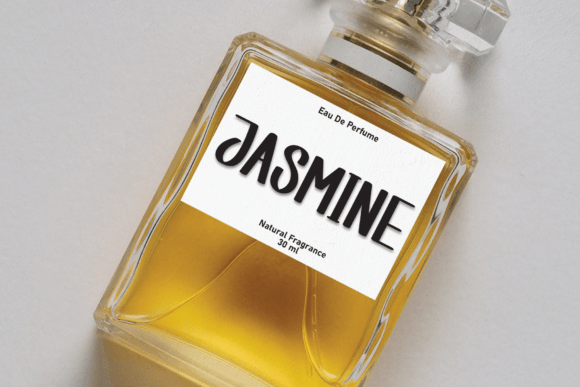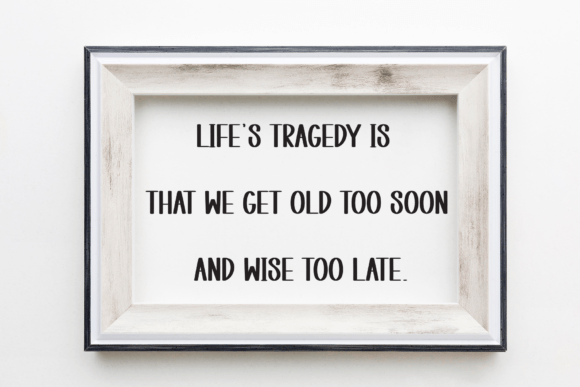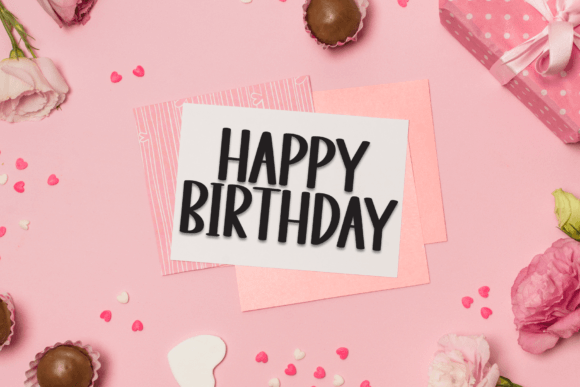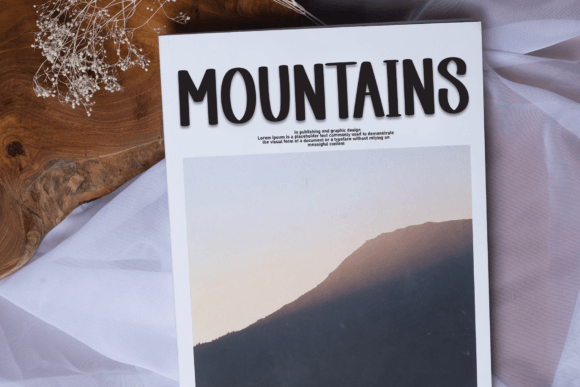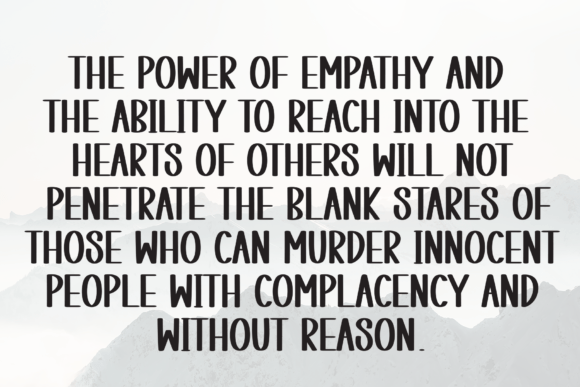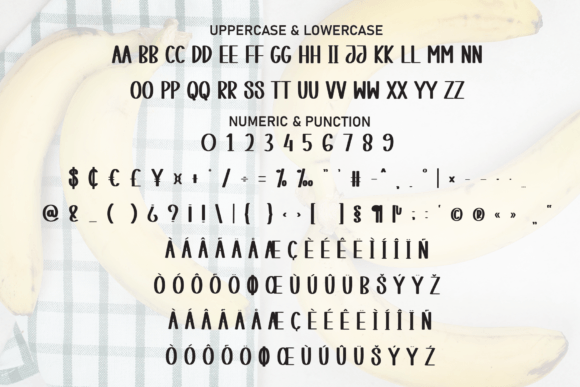
Introducing Banana Christmas Font: The Perfect Casual Sans-Serif for Your Design Projects
Are you tired of using the same old fonts for your design projects? Look no further than the Banana Christmas font, a casual sans-serif font that offers a clean and approachable look, perfect for everyday design projects. Its simple, rounded letterforms create a friendly and relaxed feel, making it ideal for websites, apps, and branding. In this article, we’ll dive into the features and benefits of the Banana Christmas font, and explore how it can elevate your design projects.
What is Banana Christmas Font?
Banana Christmas font is a modern sans-serif font that is designed to provide a clean and approachable look. Its simple and rounded letterforms make it perfect for use in a variety of design projects, from websites and apps to branding and marketing materials. The font’s casual and relaxed feel makes it ideal for designers who want to create a friendly and approachable vibe for their clients or brand.
Key Features of Banana Christmas Font
- Clean and Approachable Look: The Banana Christmas font features a clean and modern design that is perfect for everyday design projects.
- Simple and Rounded Letterforms: The font’s simple and rounded letterforms create a friendly and relaxed feel, making it ideal for use in a variety of design projects.
- Versatile and Readable: The font’s versatility ensures readability and modern appeal, making it perfect for use in body text, headings, and titles.
Benefits of Using Banana Christmas Font
So why should you choose the Banana Christmas font for your design projects? Here are just a few benefits of using this versatile font:
- Easy to Read: The font’s clean and simple design makes it easy to read, even at small sizes.
- Versatile: The font’s versatility makes it perfect for use in a variety of design projects, from websites and apps to branding and marketing materials.
- Modern Appeal: The font’s modern design ensures that your design projects will look fresh and up-to-date.
How to Use Banana Christmas Font in Your Design Projects
Using the Banana Christmas font in your design projects is easy. Here are a few tips to get you started:
- Pair it with Other Fonts: The Banana Christmas font pairs well with other sans-serif fonts, making it perfect for use in combination with other fonts.
- Use it for Body Text: The font’s readability makes it perfect for use in body text, ensuring that your content is easy to read and understand.
- Use it for Headings and Titles: The font’s modern appeal makes it perfect for use in headings and titles, adding a touch of sophistication to your design projects.
Here are a few tips for designers and crafters who want to get the most out of the Banana Christmas font:
- Experiment with Different Sizes: The font’s versatility makes it perfect for use at a variety of sizes, from small body text to large headings.
- Play with Color: The font’s clean design makes it perfect for use with a variety of colors, adding a pop of personality to your design projects.
- Use it for Branding: The font’s modern appeal makes it perfect for use in branding, helping to create a consistent and recognizable identity for your clients or brand.
In conclusion, the Banana Christmas font is a versatile and modern sans-serif font that is perfect for everyday design projects. Its clean and approachable look, simple and rounded letterforms, and readability make it ideal for use in a variety of design projects, from websites and apps to branding and marketing materials. Whether you’re a designer or crafter, the Banana Christmas font is a great addition to your font library, offering a fresh and modern take on traditional sans-serif fonts.